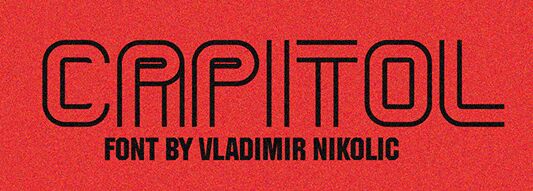
Capitol Extravagant font by Vladimir Nikolic is a free groovy display typeface that turns every word into a piece of retro light art. Built from tight stacks of parallel lines, its letters feel like glowing marquee tubing, wrapping around curves and shooting straight through verticals with confident, rhythmic stripes. The Capitol family’s geometric bones keep all that flair legible, so even the busiest forms stay clean and sharp at larger sizes.
Using Capitol Extravagant, bold titles instantly gain a 70s futurist vibe that suits music posters, club flyers, sci‑fi covers, fashion branding, event signage, and bold packaging. This free font shines when you let it breathe-set it big, give it space, and pair it with a plain, modern sans serif for body text to keep the layered lines in the spotlight.
Capitol Extravagant Regular font presentation and specimen
Capitol Extravagant Regular font character map